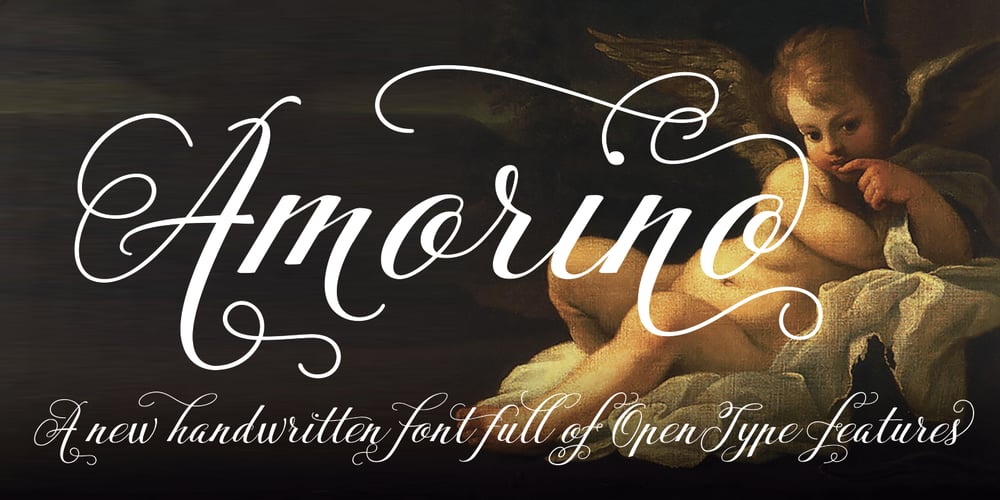
Amorino
Amorino font
Amorino Font Family was designed by Carine de Wandeleer and published by Eurotypo. Amorino contains 1 styles and family package options. Amorino is a new casual and organic calligraphic font. Is the perfect blend of elegant and casual. With the total number of 889 glyphs, is equipped with plenty of OpenType features. Uppercase letters can alternate between at least four different forms and lowercase letters have up to thirteen choices more to avoid repetition. These effects include start and end forms words. To activate the optional glyphs you may click on Swash, Contextual, Standard Ligatures, Stylistic or Discretionary Ligatures buttons in any OpenType savvy program or manually choose the characters from Glyph Palette. Amorino font might be the choice to use on creating headlines, logos & posters for branding and packaging purposes. Hope you enjoy.